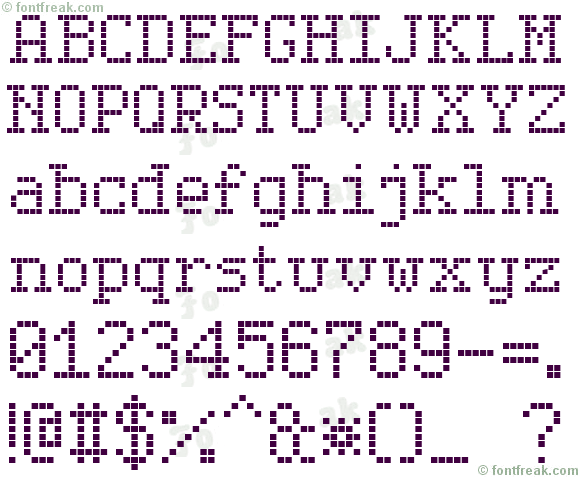
Serif LED Board-7
Serif LED Board-7 by Style-7 is a captivating serif font that effortlessly blends modern aesthetics with retro charm. This font features distinct, block-like characters reminiscent of classic LED board displays, making it a standout choice for both digital and print applications. Its uniform stroke weight and minimal contrast give it a clean, cohesive appearance, while the evenly spaced letters provide excellent readability, even from a distance. The font’s geometric design incorporates subtle decorative elements that enhance its visual appeal without overwhelming the overall composition.
The Serif LED Board-7 font is incredibly versatile, making it suitable for a variety of creative projects. It shines particularly in signage, where its bold presence can draw attention and convey information effectively. The font is also ideal for restaurant menus, giving a modern twist to traditional dining experiences. Additionally, it works well in promotional materials, such as flyers and posters, where a unique aesthetic can help capture the audience's interest. Graphic designers will appreciate its potential for use in branding projects, especially for businesses looking to establish a contemporary yet approachable identity.
What truly sets the Serif LED Board-7 apart is its unique blend of retro and modern elements, making it a fantastic choice for anyone looking to elevate their design projects. With the Serif LED Board-7 font free download available, you can easily incorporate this distinctive typeface into your work and stand out in an increasingly crowded visual landscape.